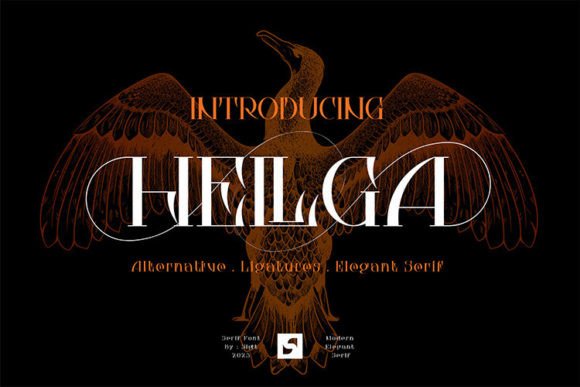
In the realm of typography, where letters dance and words take flight, Hellga Font emerges as a gothic-inspired masterpiece, ready to transform your creative visions into captivating realities. This all-style caps serif font, meticulously crafted by sigit-ap, is an artistic triumph that will elevate your designs to new heights.
Hellga Font is not merely a collection of letters; it is an invitation to embark on a journey through time, where the elegance of old-world calligraphy intertwines with the boldness of modern aesthetics. Its intricate details, reminiscent of ancient manuscripts, lend an air of sophistication and timeless beauty to any project they grace.
With Hellga Font, you hold the power to craft magazine layouts that captivate readers, leaving them spellbound by your words. Its distinctive character set, featuring a treasure trove of alternative styles for each letter, allows you to unleash your creativity, creating headlines and text that demand attention.
This remarkable font finds its home not only in the realm of magazines but also in the world of branding, where it breathes life into logos, business cards, and marketing materials. Its versatility extends to posters and invitations, where its gothic charm adds a touch of mystique and allure.
Hellga Font's PUA encoding opens up a world of possibilities, granting you effortless access to its captivating glyphs and ligatures. With a few simple clicks, you can incorporate these ornate elements into your designs, adding depth and intrigue that will leave your audience in awe.